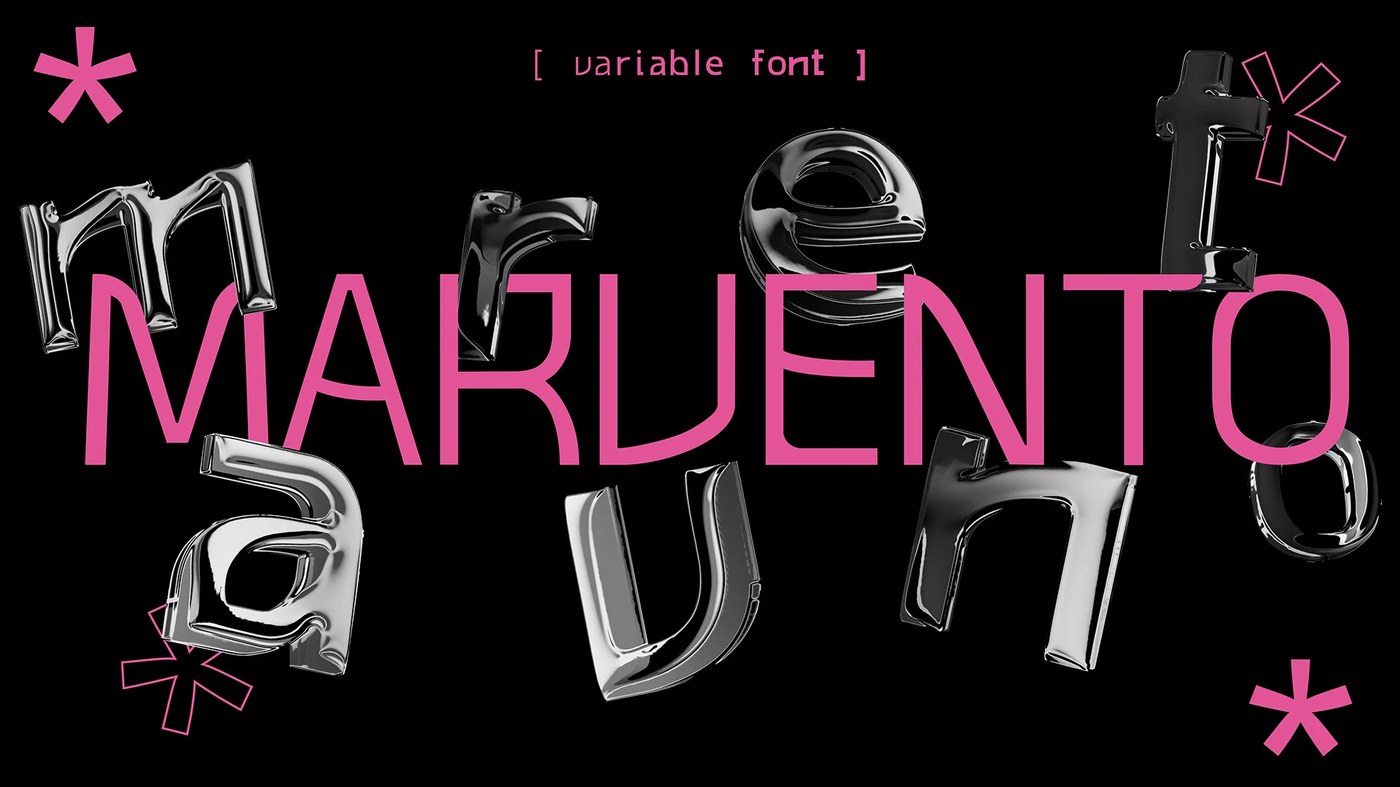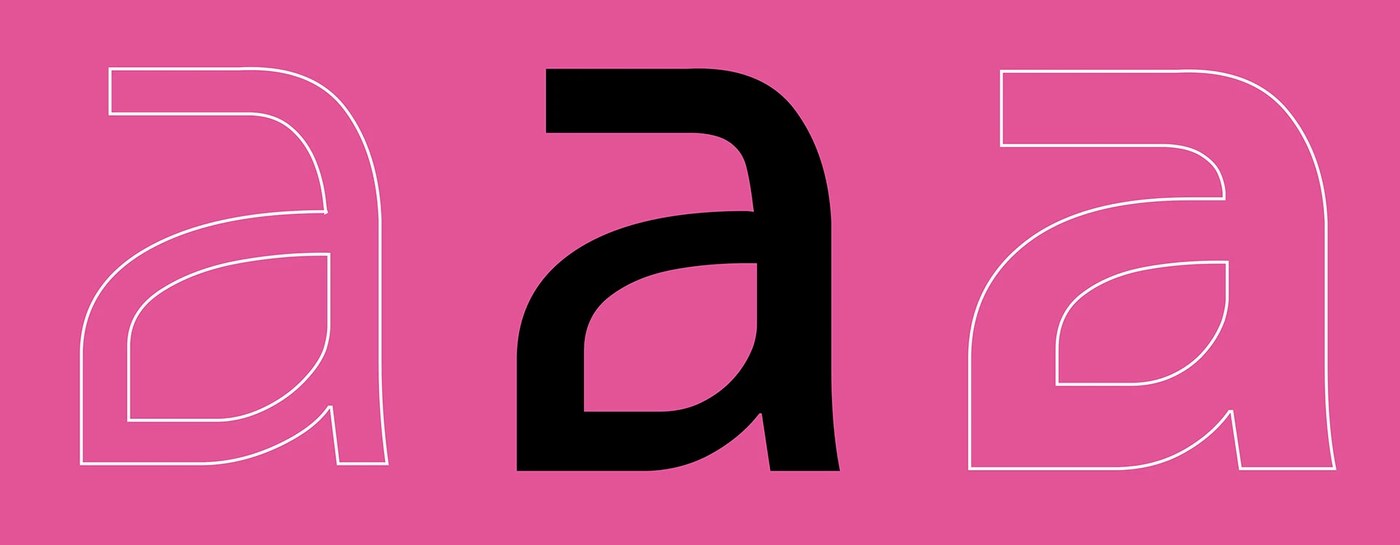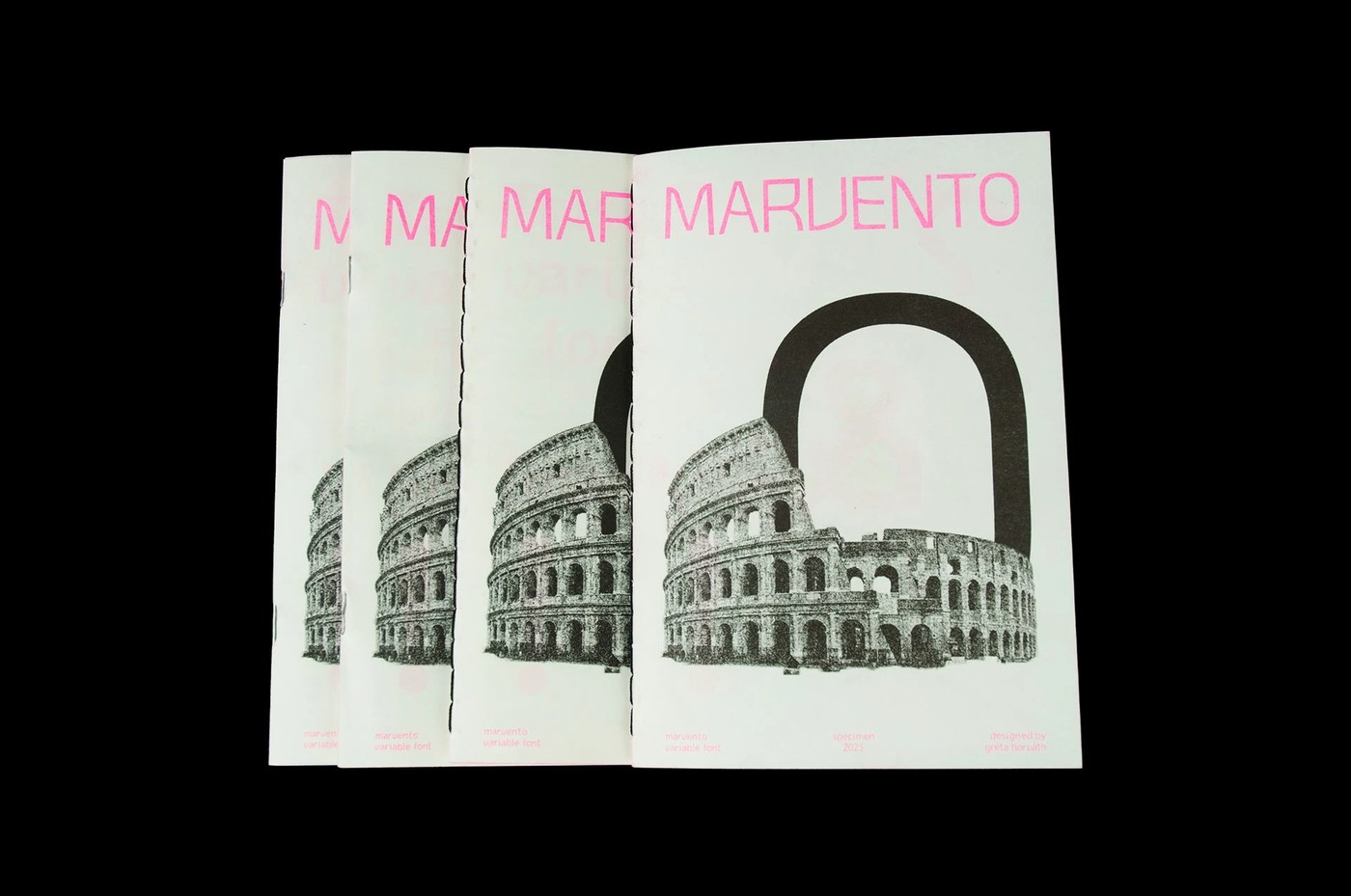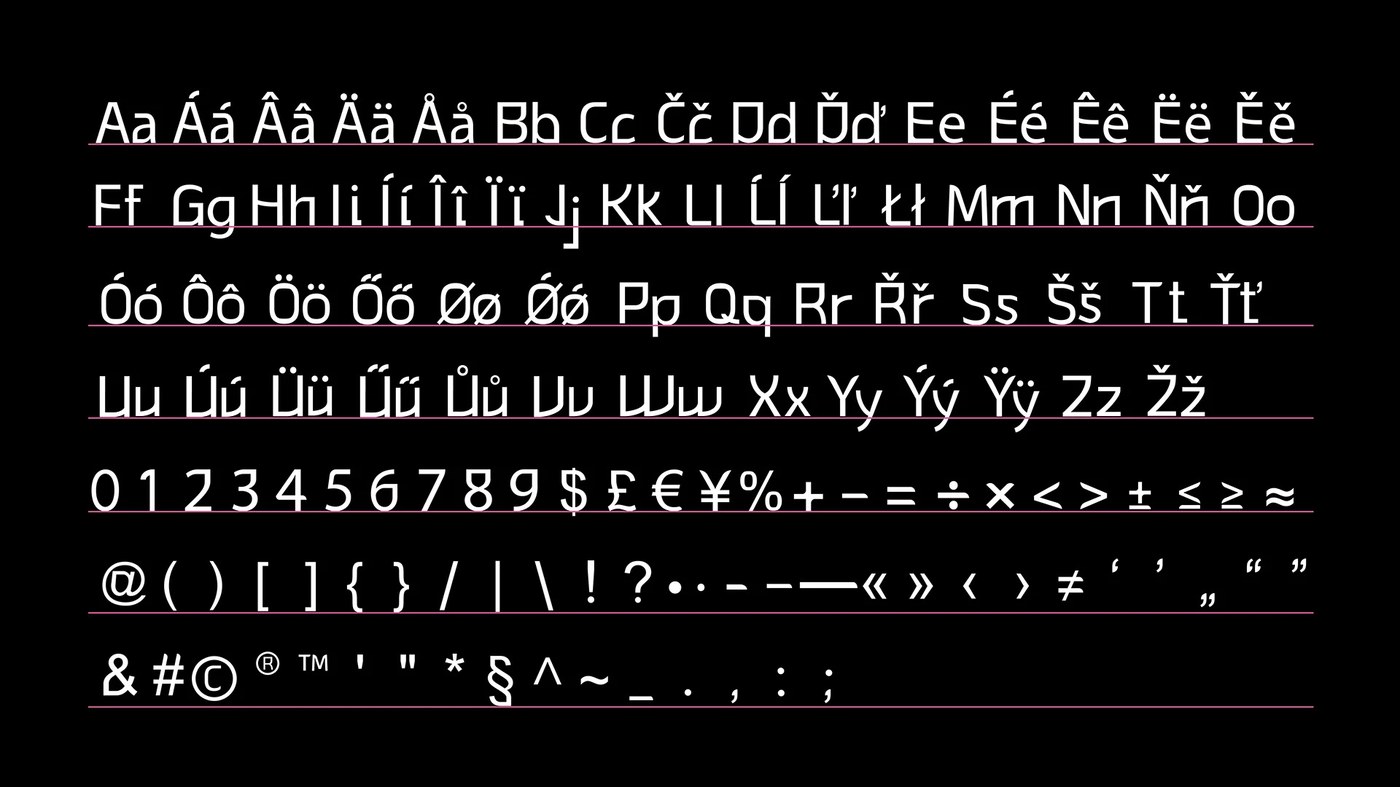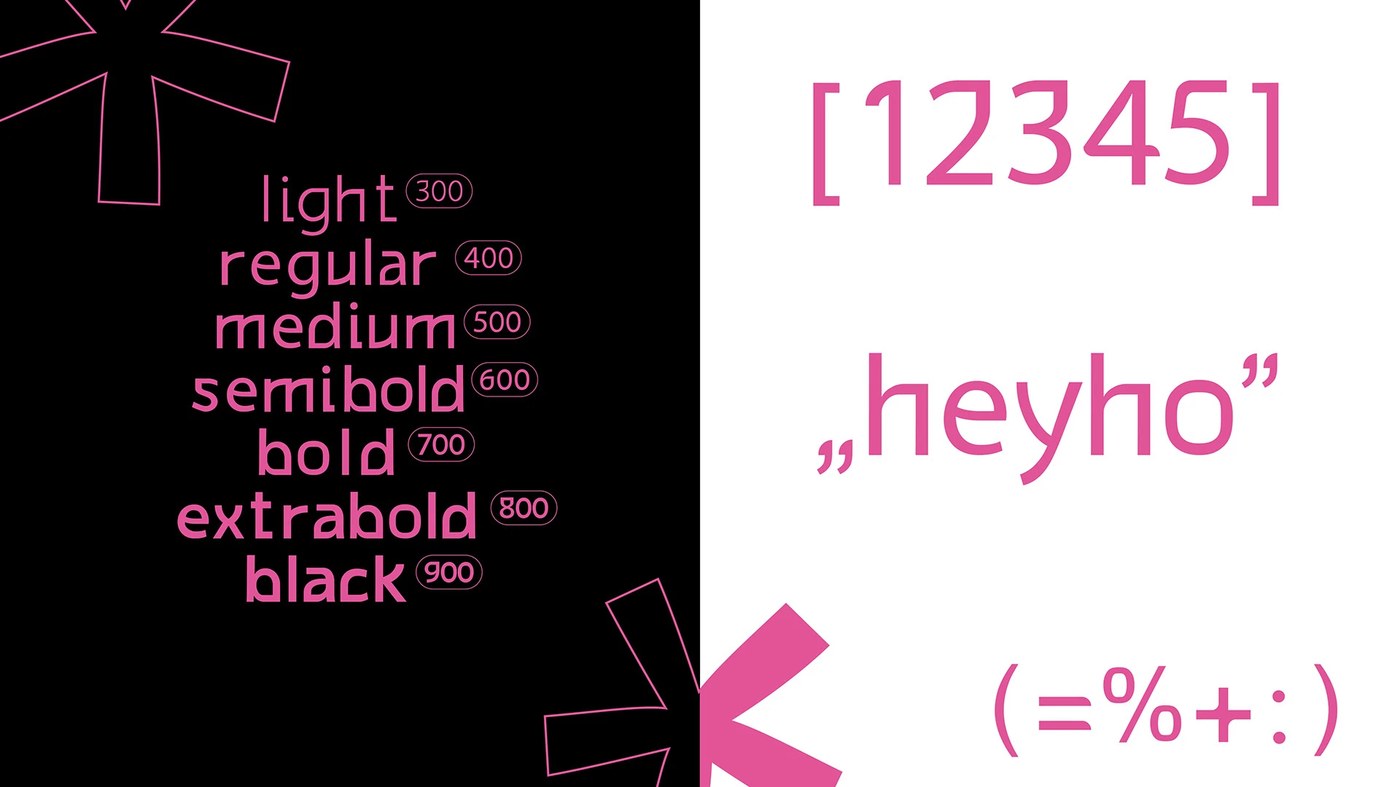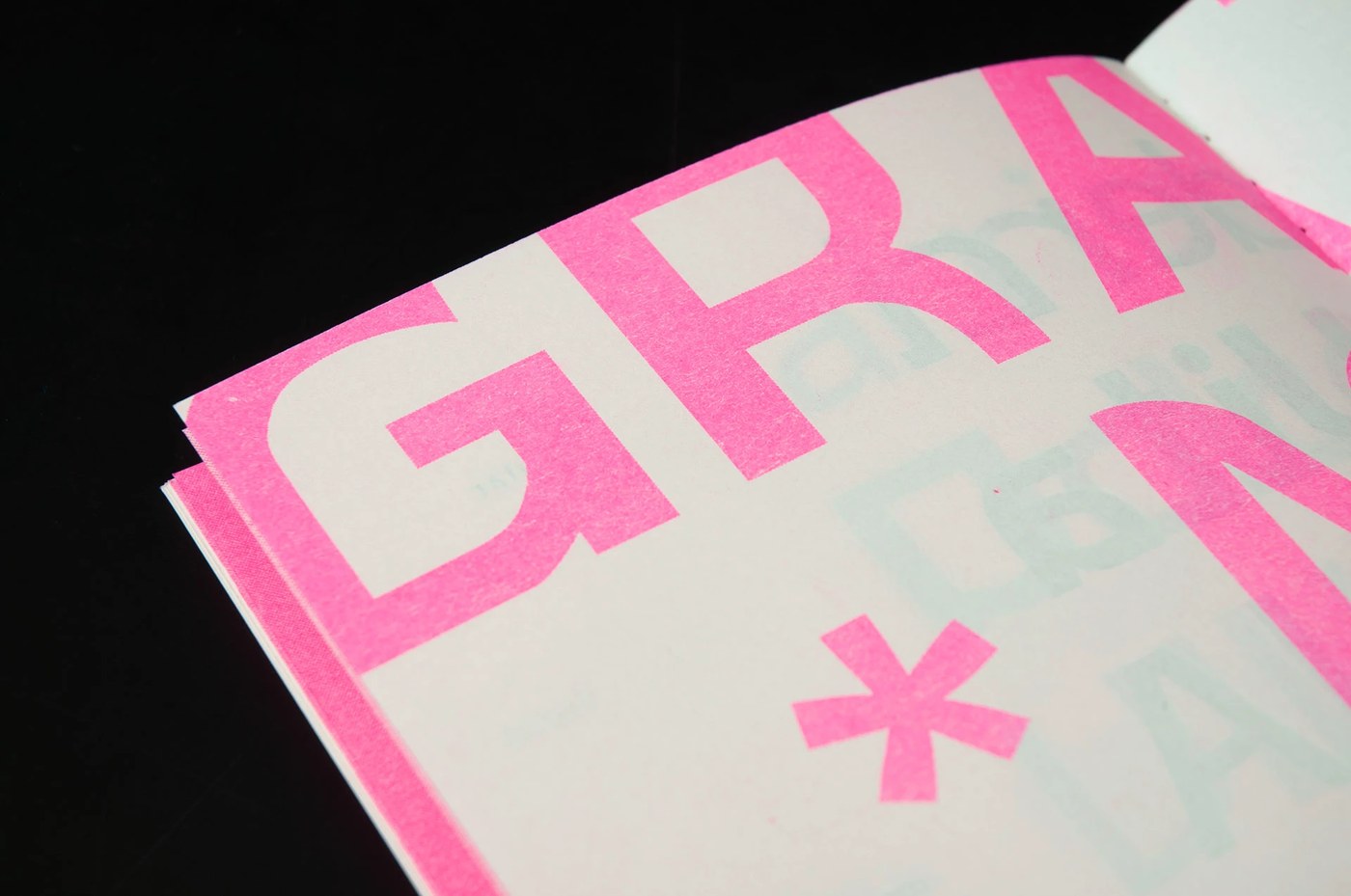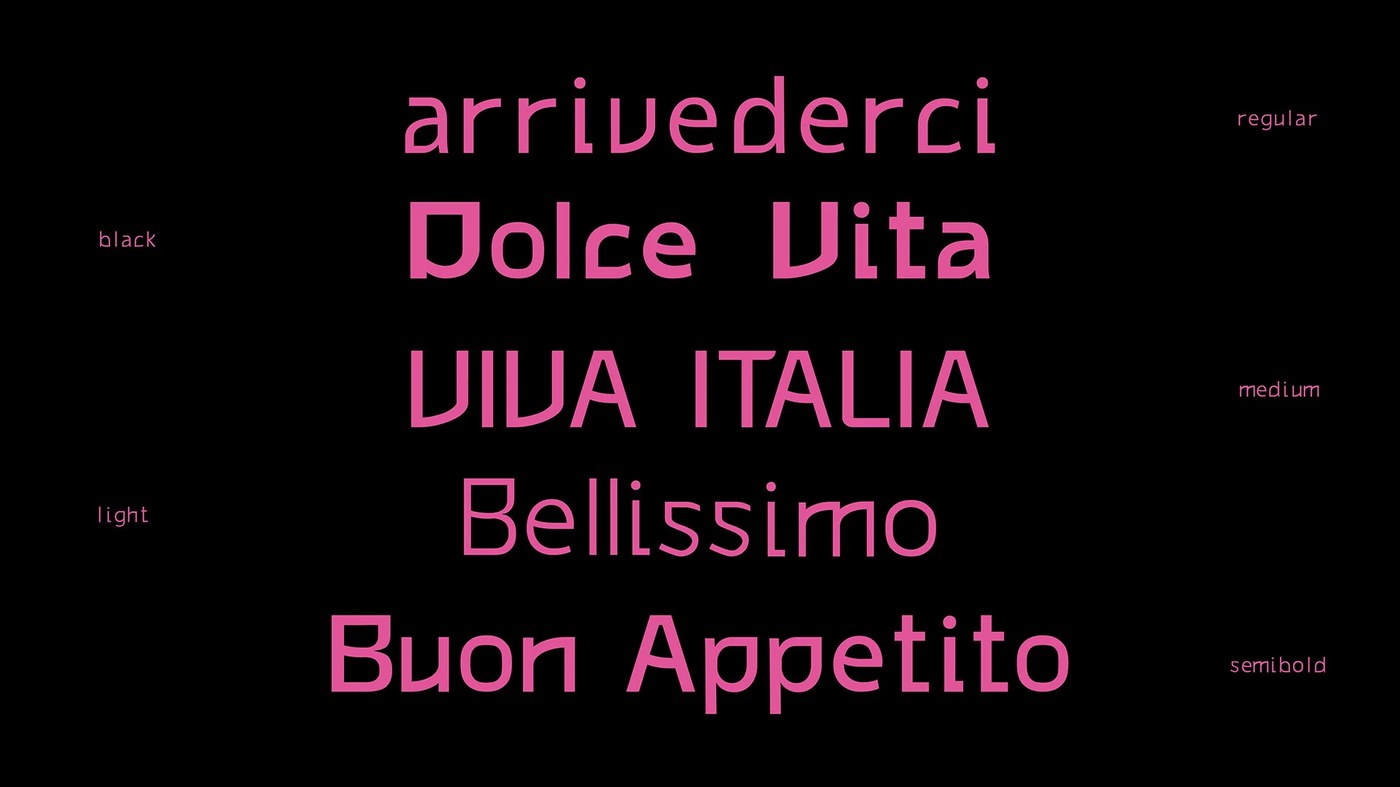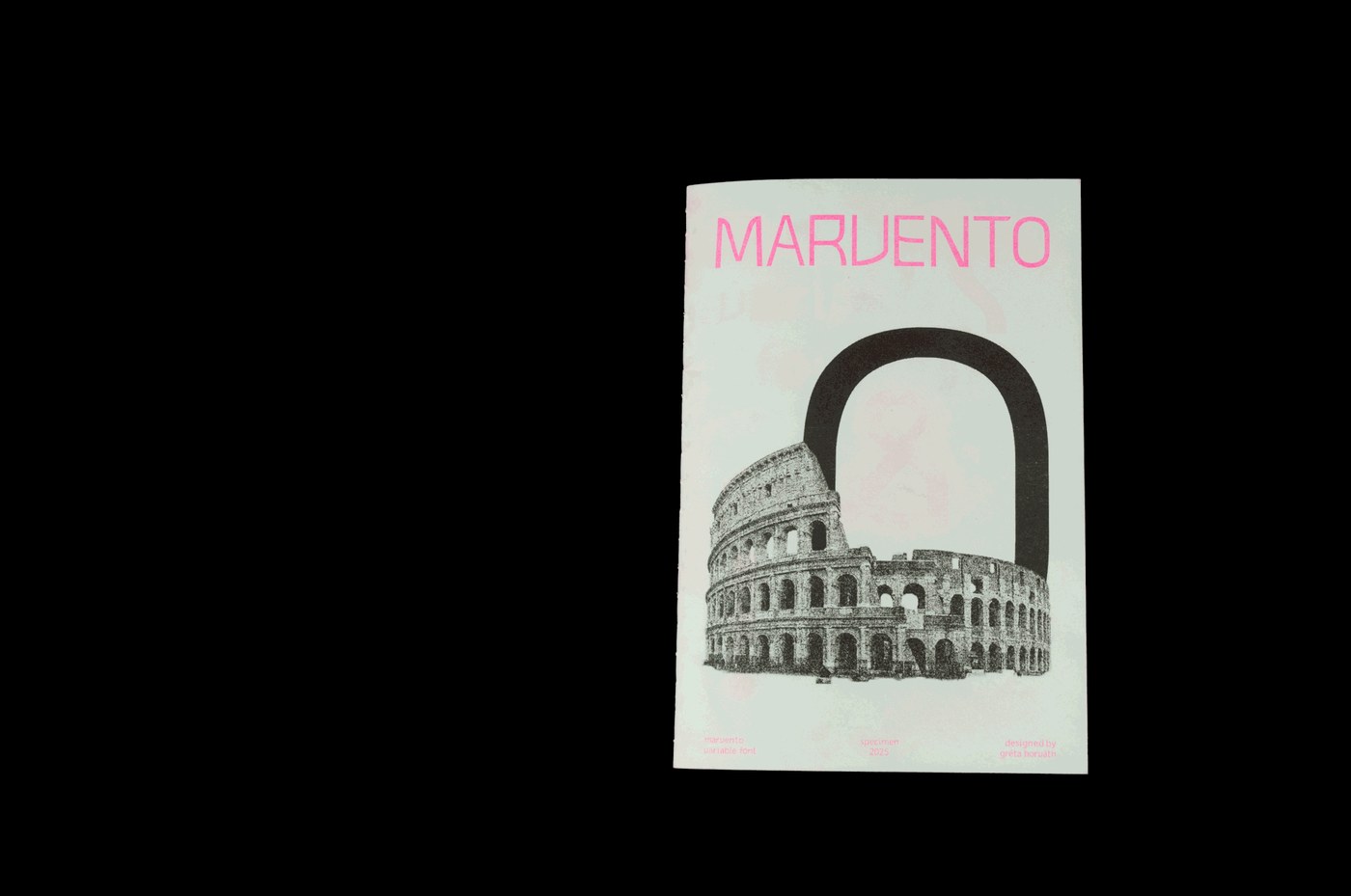
This variable typeface specimen risograph print design booklet showcases the 7-weight Marvento font family designed by Gréti Horváth.
The variable typeface specimen risograph print design project by Hungarian designer Gréti Horváth translates digital type anatomy into material weight. Spanning seven distinct weights, the variable letterforms stretch from thin, delicate strokes to heavy, structured display masses. Rather than displaying the typeface exclusively in digital renders, the project relies on physical print tests, utilizing overlay spot colors on textured stock to ground the font's geometry. In doing so, the variable typeface specimen risograph print design bridges digital layouts with analog mechanical production.
Through layered overlay inks including fluorescent pink and teal, the risograph print specimen captures the natural textures of analog production. These overlapping spot colors emphasize the variable typeface specimen risograph print design's anatomical details, creating rich secondary hues where ink layers intersect. Each page balances rigorous editorial copy grids with oversized glyph spreads, framing individual letterforms not as static text, but as raw graphic components with physical volume. The variable typeface specimen risograph print design is legible as both a type tool and a print artifact.
Ultimately, this tactile document functions as both a functional catalog and a visual system in its own right. The structural tension between clean digital outlines and granular risograph paper textures shows how modern variable type design benefits from physical translation. This variable typeface specimen risograph print design showcases the rich visual friction of ink on paper. Explore the full typeface project and specimen sheets directly on Gréti Horváth's portfolio.